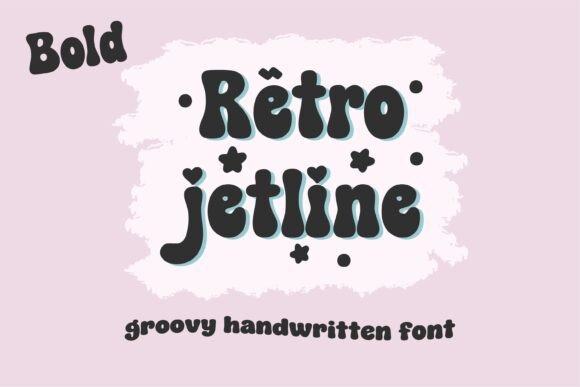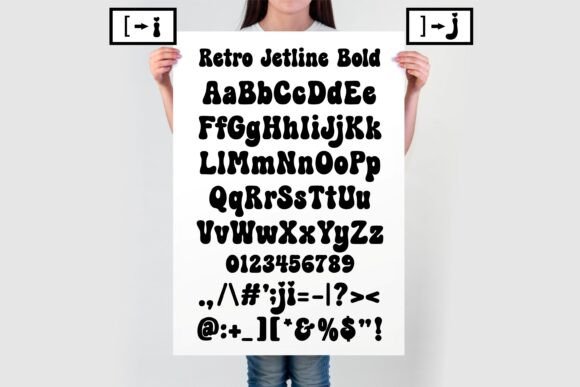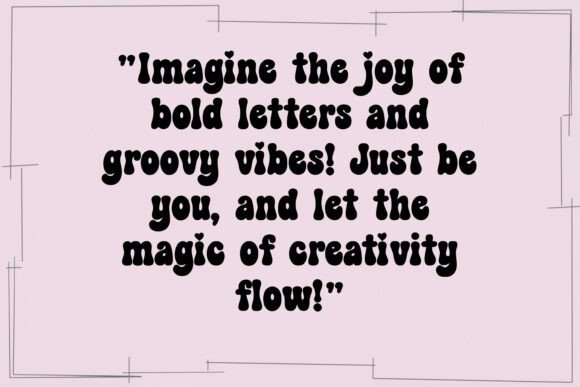
Introduction to Retro Jetline Font
Have you ever stared at a blank page, searching for the perfect font to bring your creative project to life? You’ve got a vision, but the right typography is missing. That’s where the Retro Jetline Font comes in – a groovy bundle of five styles that will transport your designs to a bygone era.
As a designer, you know the importance of having a versatile and high-quality design resource at your fingertips. The Retro Jetline Font delivers, with its transparent background and bold, eye-catching styles that are perfect for crafting logos, branding materials, and decorative frames. Whether you’re working on a free download for a blog header or creating marketing materials for a business, this font bundle is a valuable addition to your design toolkit.
Key Features of Retro Jetline Font
- Retro aesthetic with a unique blend of vintage and futuristic elements, perfect for creative projects that require a nostalgic touch.
Honest Review: Retro Jetline Font
As a designer, I’m always on the lookout for unique and high-quality design resources to elevate my creative projects. The Retro Jetline Font is a great addition to my collection, and I’m excited to share my honest review with you.
What works well: ✨ The Retro Jetline Font has a distinctive, retro-futuristic aesthetic that’s perfect for sci-fi or vintage-themed projects. The font is highly customizable, with a range of styles and sizes to choose from. I appreciate that it’s a free download, making it accessible to designers of all levels.
What doesn’t work so well: ⚠️ While the font is high quality, it’s not ideal for projects that require a transparent background. The font’s design doesn’t lend itself well to subtle text overlays, which can be a limitation for certain design applications.
Overall impression: I’m impressed with the Retro Jetline Font’s unique style and versatility. It’s a great resource for designers who want to add a touch of nostalgia or futurism to their projects. While it may not be suitable for every design scenario, it’s a valuable addition to any design library.
- Unique, retro-futuristic aesthetic
The Retro Jetline Font is perfect for a variety of design projects, including:
- Designing vintage-inspired posters and flyers
- Creating a unique logo for a business or brand
- Adding a touch of nostalgia to a website or blog